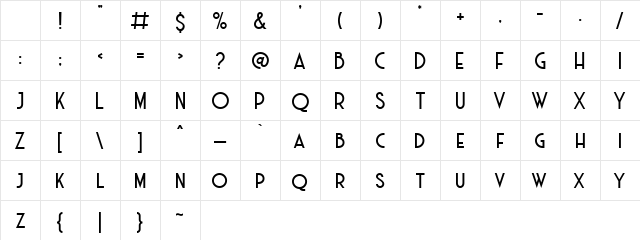
Complete Haarlem Deco DEMO Regular glyph index. Displaying only characters natively supported by Haarlem Deco DEMO Regular font.
Haarlem Deco DEMO is a composed and adaptable typeface that performs quietly and consistently across a wide range of design contexts.